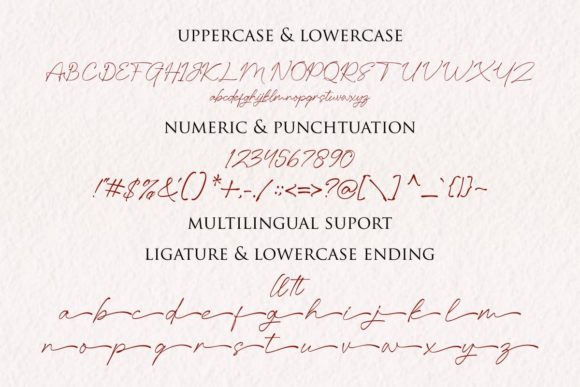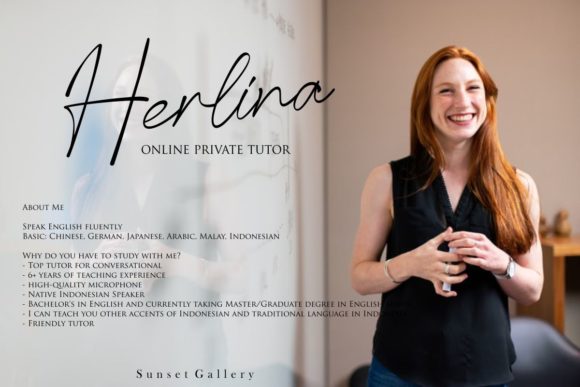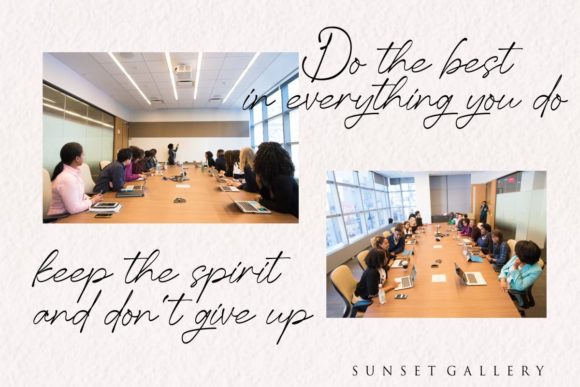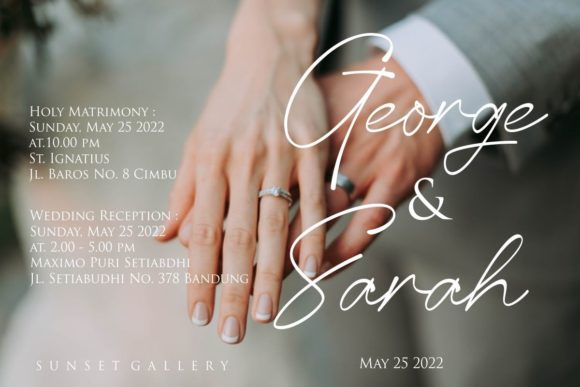
About Glantte Font
Glantte is a thin lettered and graceful script font. Fall for its ravishing style and use it to create gorgeous wedding invitations, beautiful stationary art, eye-catching social media posts, and much more! Glantte is PUA encoded which means you can access all glyphs and swashes with ease!